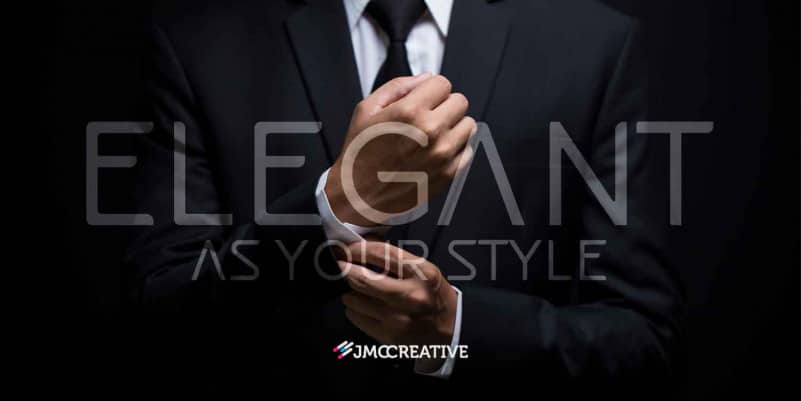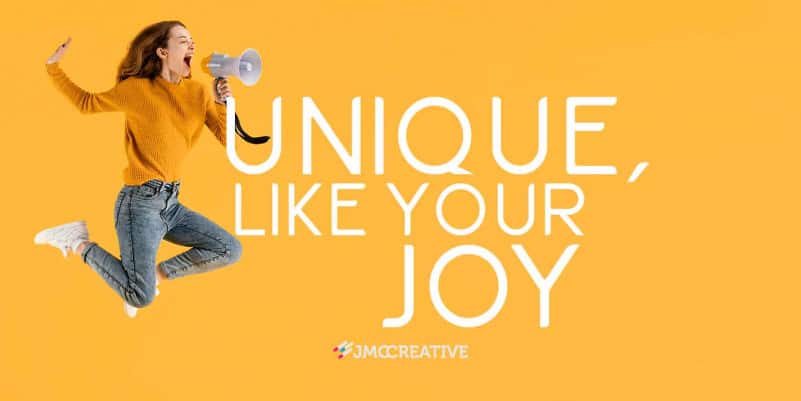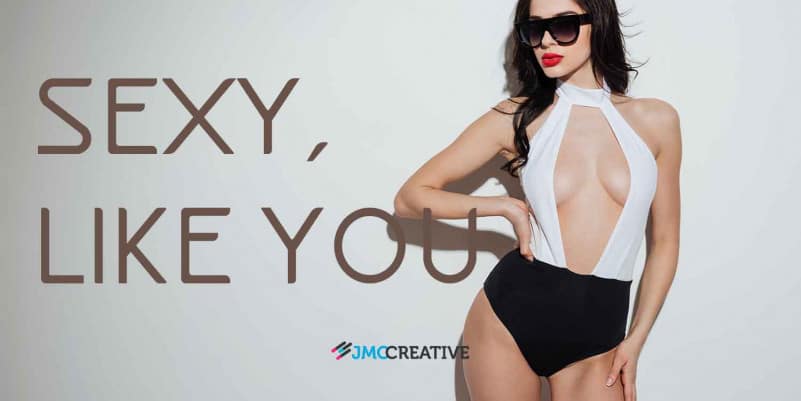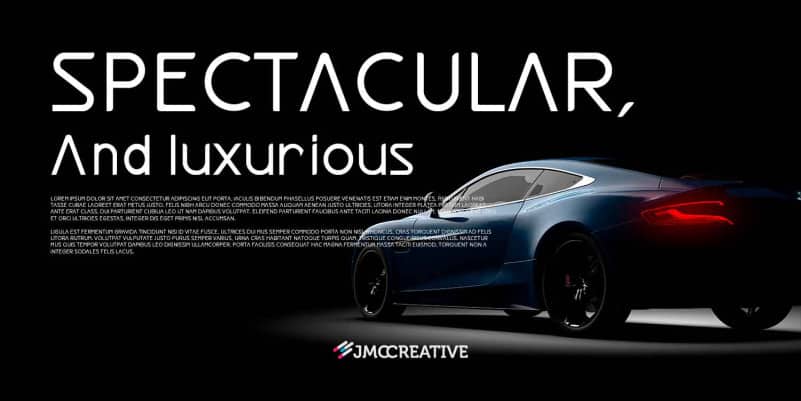
BOGOTA FREE FONT
BOGOTA FONT is a sanserif typeface designed in a beautiful Caribbean country,
more precisely in the capital of this beautiful country, the city of BOGOTA,
IN THE YEAR 2021 by designer Juan Manjarrez. A stylish and elegant font tailored to the elegant ones for texts
BOGOTA FONT es una tipografía sanserif diseñada en un hermoso país caribeño,
mas exactamente en la capital de este bello país, la ciudad de BOGOTA,
EN EL AÑO 2021 por el diseñador Juan Manjarrez. Una fuente estilizada y
elegante hecha a medida de las elegantes para textos